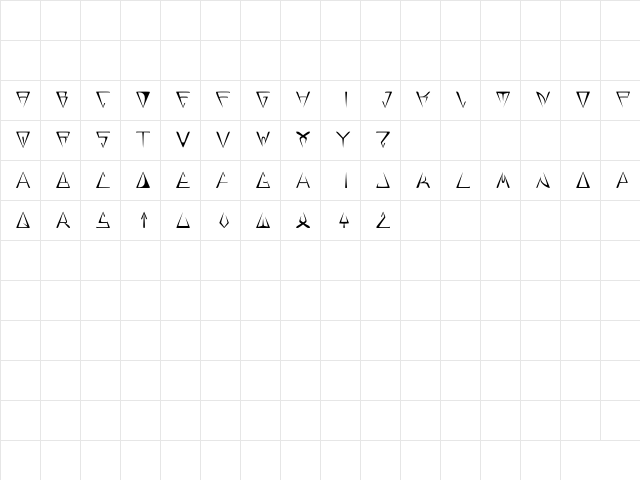
GlOrY ThIn ReGuLaR
Design Context for GlOrY ThIn
GlOrY ThIn is a composed and adaptable typeface that performs quietly and consistently across a wide range of design contexts. Its slender proportions lend an understated elegance to any composition.